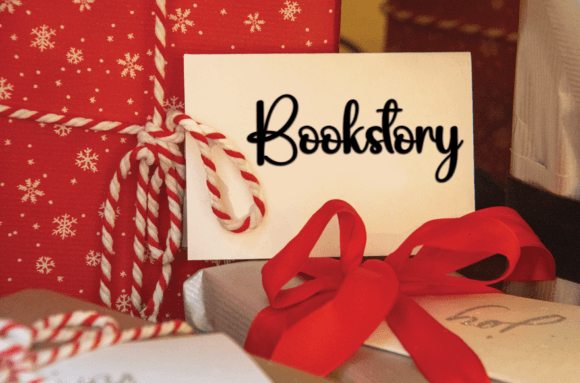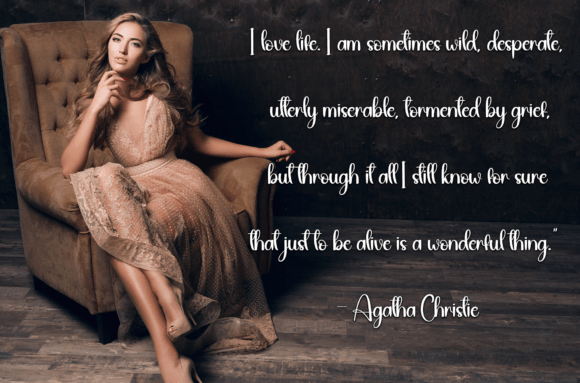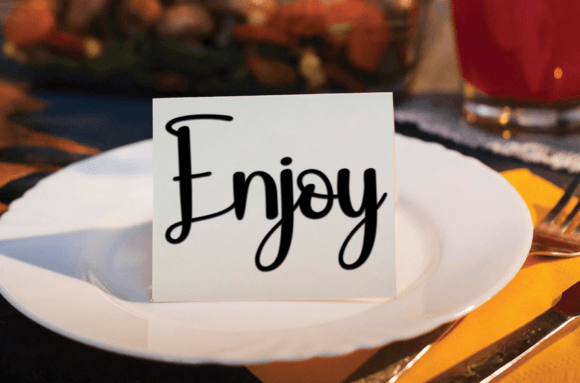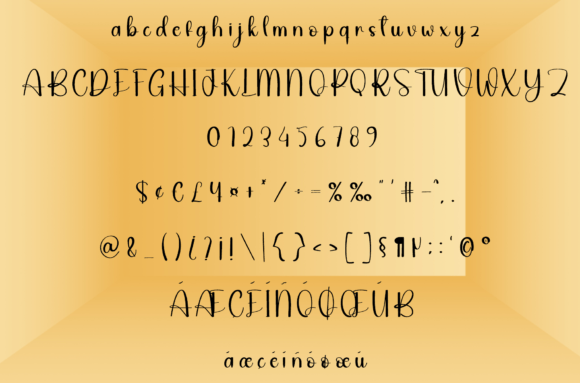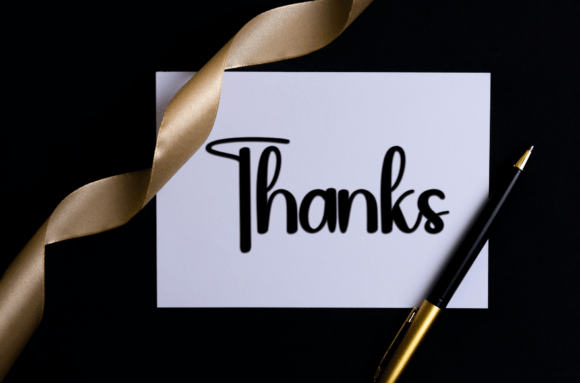
Introduction to The Beach Font
The Beach Font is a fun and friendly handwritten typeface. It brings a cheerful and approachable vibe to any project. Whether you create crafts or digital designs, this font adds personality and warmth.
Versatile for Many Occasions
You can use The Beach Font for a wide variety of projects. For instance, it works well on greeting cards, presentations, posters, and social media graphics. Because of its playful style, it suits both casual and creative settings perfectly.
Fun and Friendly Design
This font features smooth, natural strokes that feel hand-drawn. As a result, it conveys a relaxed and inviting look. Moreover, The Beach Font makes your designs feel more personal and engaging.
Ideal for Crafting and Digital Use
Whether you work with physical crafts or digital platforms, The Beach Font adapts beautifully. You can use it in scrapbooking, invitations, or website headers. Its friendly style helps your message connect with audiences effectively.
Pairing Suggestions
To create balanced designs, pair The Beach Font with clean sans-serif fonts. This combination maintains readability while highlighting The Beach’s unique character. Avoid using it for long paragraphs, as it shines best in titles and highlights.
Why Choose The Beach Font?
If you want a fon that adds joy and friendliness to your projects, The Beach is a great pick. It brings creativity and warmth together effortlessly. Consequently, it can become your go-to font for many occasions.
In summary, The Beach Fon is a fun, friendly handwritten typeface. It works well in crafts, digital designs, and presentations. Use it to add charm and personality to your creative projects.